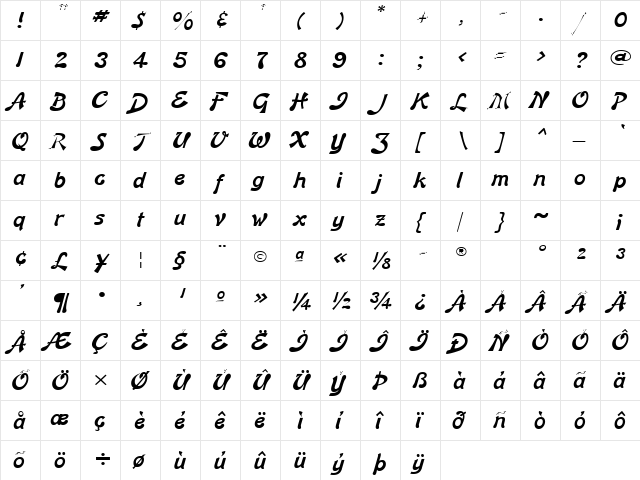
Banner Lite Bold
Design Context for Banner Lite Typeface
Banner Lite is a composed and adaptable typeface that performs quietly and consistently across a wide range of design contexts. Its bold stroke weight gives it real presence on the page.